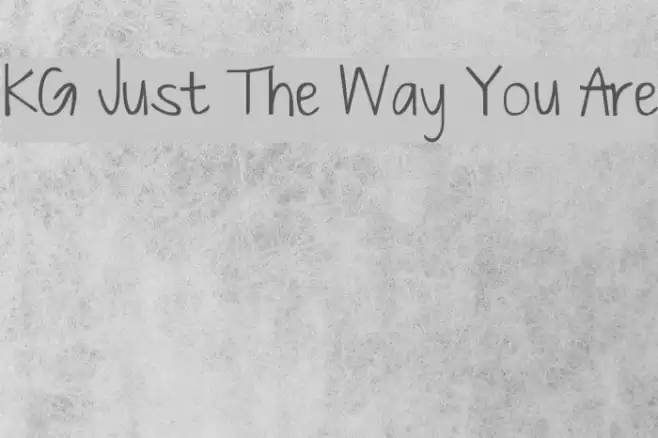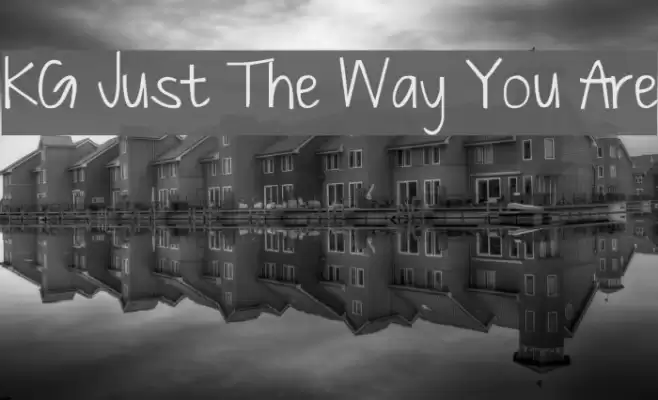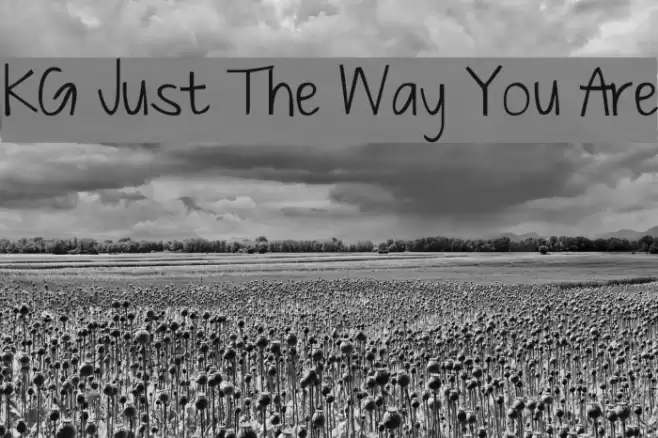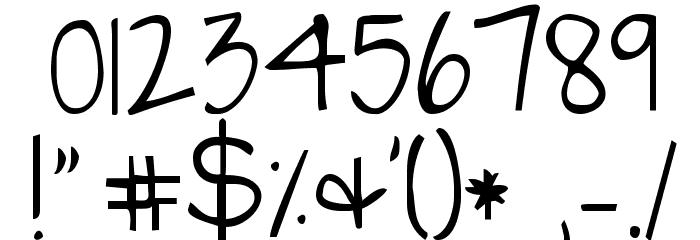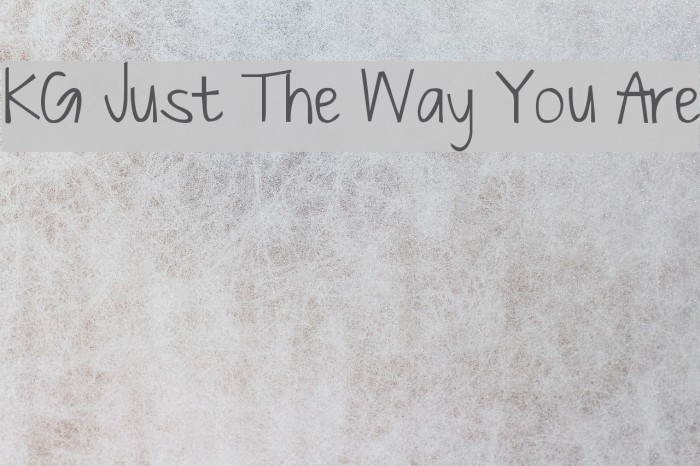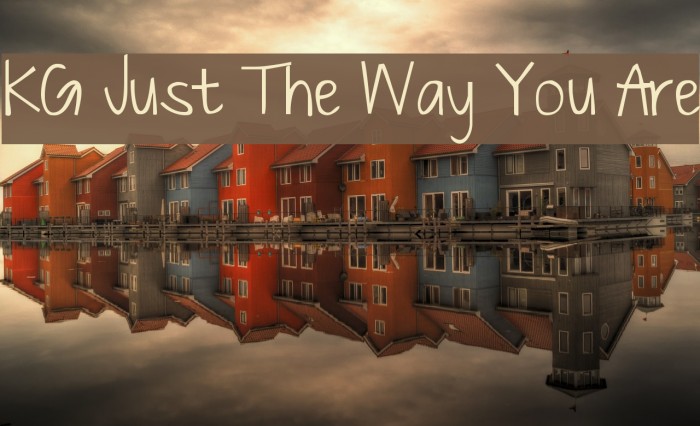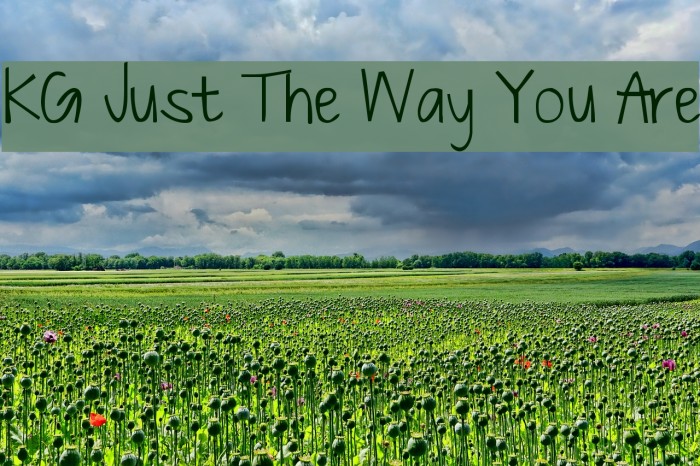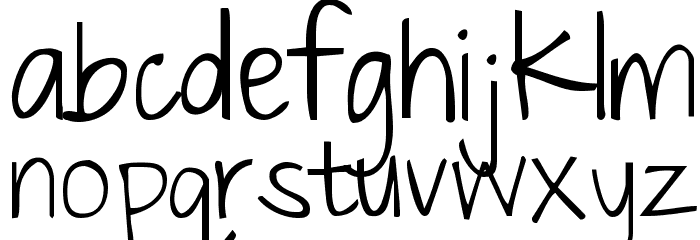
KG Just The Way You Are Font
KG Just The Way You Are Description
This playful and casual handwritten font features a whimsical and friendly style, characterized by its irregular strokes and slightly tilted letters. The uppercase and lowercase letters maintain a consistent flow, giving it a natural and organic feel. The numbers and special characters are crafted with the same lively touch, making them blend seamlessly with the alphabet. Its informal appearance makes it perfect for projects that require a personal and approachable touch. The font's unique charm lies in its ability to convey warmth and creativity, making it suitable for a variety of design needs.
A playful, handwritten font with a whimsical and friendly style from Uncategorized fonts.
- Proposed Projects: Ideal for greeting cards, children's books, personal blogs, and creative branding.
- Overall Style: Casual
- Use Case: Headlines, Informal text, Creative projects